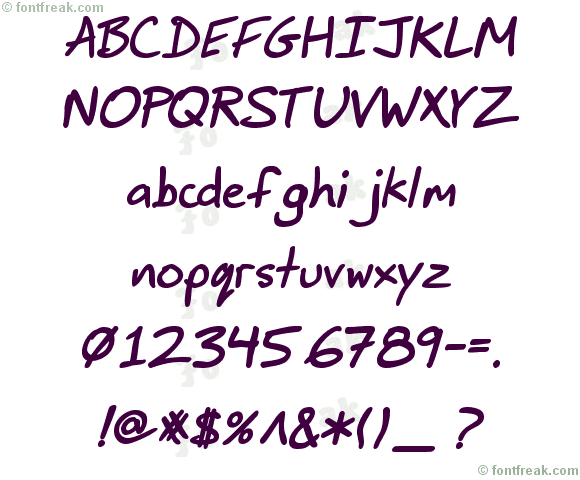
JimbosPrint-Bold-Italic
The JimbosPrint-Bold-Italic font by Xerographer Fonts is a unique and expressive display typeface that captures a playful yet sophisticated aesthetic. This font belongs to the handwritten category, characterized by its bold and italic style, which adds a dynamic flair to any design. The strokes are slightly irregular, mimicking the natural flow of handwriting, while the bold weight ensures strong visibility and impact. The spacing is well-balanced, allowing for readability without sacrificing the font's artistic qualities.
JimbosPrint-Bold-Italic is an excellent choice for various creative applications. It works beautifully on wedding invitations, where its elegant yet casual vibe can enhance the overall theme. Additionally, it is ideal for movie posters, providing a distinctive look that draws attention and sets the tone for the film. Restaurant menus can also benefit from this font, as it adds a personal touch to the dining experience. Furthermore, it is well-suited for branding materials, particularly for small businesses looking to convey a friendly and approachable image.
The target audience for this font includes graphic designers, small business owners, and content creators who seek to inject personality into their projects. Whether you are designing a logo, crafting promotional materials, or creating engaging social media graphics, JimbosPrint-Bold-Italic will elevate your designs with its unique charm.
What sets the JimbosPrint-Bold-Italic font apart is its ability to blend artistry with practicality. Its distinct characteristics and versatility make it an outstanding choice for anyone looking to make a statement. With the JimbosPrint-Bold-Italic font free download available, you can easily incorporate this captivating typeface into your design toolkit and unleash your creativity.